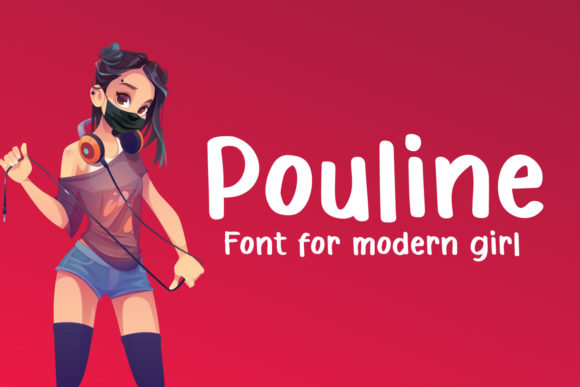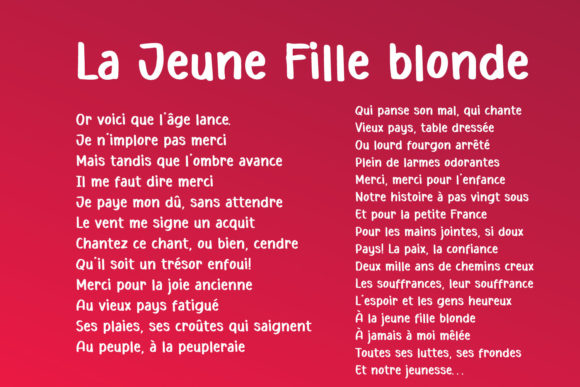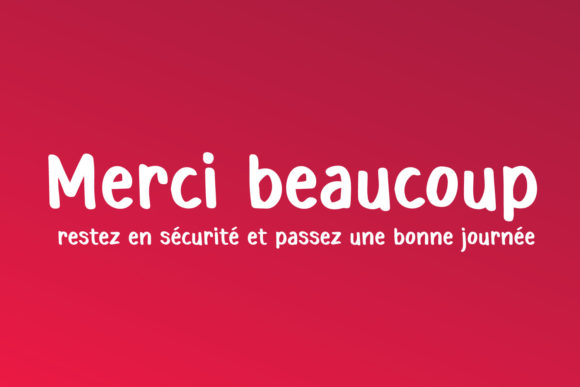
Pouline
About Pouline Font
Pouline is a dainty and unique handwritten font. Add this cute and friendly looking font to each of your, invitations, letters or favorite design ideas, and you will be astounded by the outcome.